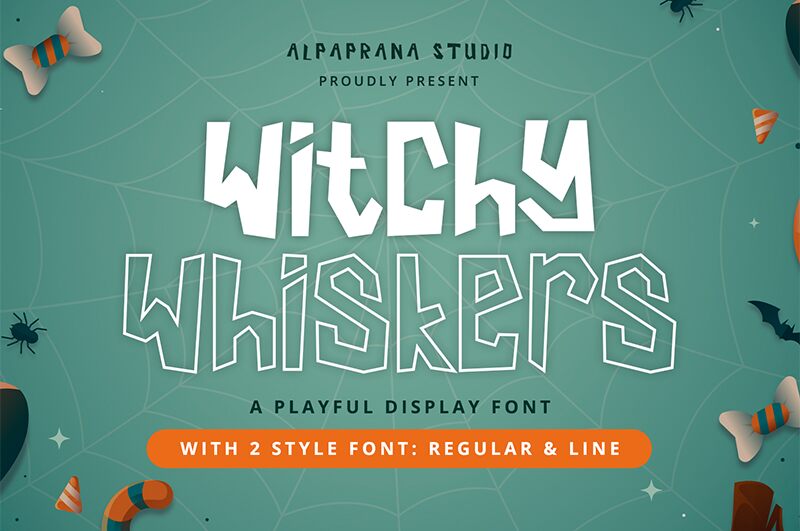
Witchy Whiskers, a holiday font designed by Alpaprana Studio, is the perfect choice for all things Halloween. With its semi-bold weight and semi-condensed width, this font exudes a playful and spooky vibe that will surely captivate your audience.
Whether you're working on branding, logo design, lettering, or logotype projects, Witchy Whiskers will add a touch of whimsy to your creations. It's also ideal for clothing designs, poster artwork, magazine layouts, packaging designs, and even shopping bags. Let your creativity run wild as you incorporate Witchy Whiskers into book covers, photography projects, special events invitations, and more.